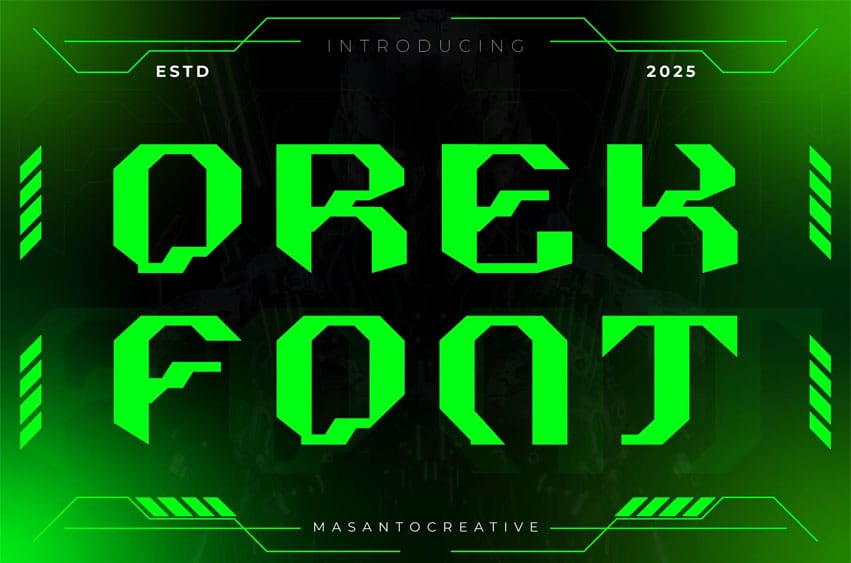
Orek Font is a bold and futuristic display font designed to bring a strong and modern edge to your creative projects. Inspired by cyberpunk aesthetics, digital technology, and sci-fi culture, OREK features sharp geometric cuts and striking letterforms that make it perfect for designs that demand attention.
This font is highly versatile and works perfectly for:
- Sci-fi posters, titles, and covers
- Esports logos, gaming content, and tech branding
- Movie titles, trailers, and futuristic typography
- Merchandise, apparel, and bold marketing visuals
- Web banners, UI/UX, and digital promotions
With complete standard characters, OREK ensures compatibility across all major design software. Its powerful, modern style will give your projects a distinctive futuristic vibe.
- Uppercase A–Z
Highlights:
- Futuristic & bold display design
- Perfect for tech, esports, and digital branding